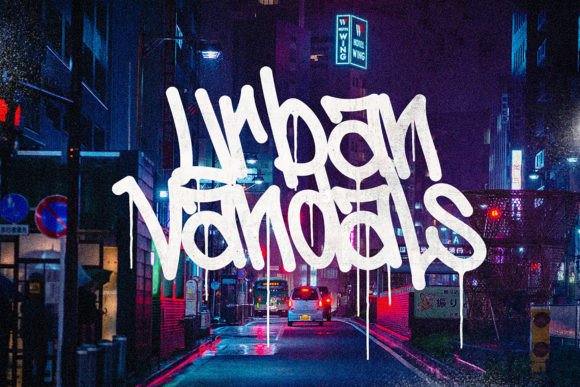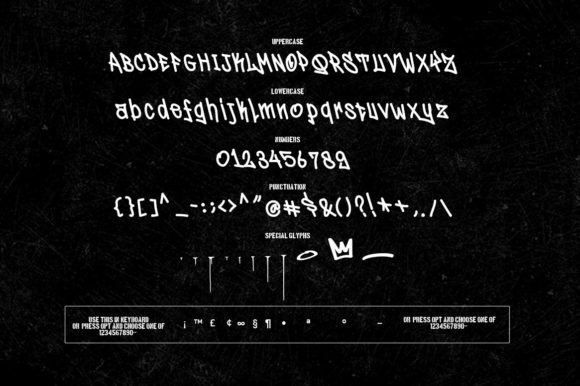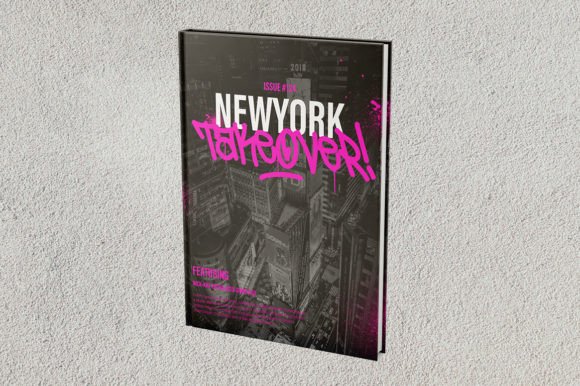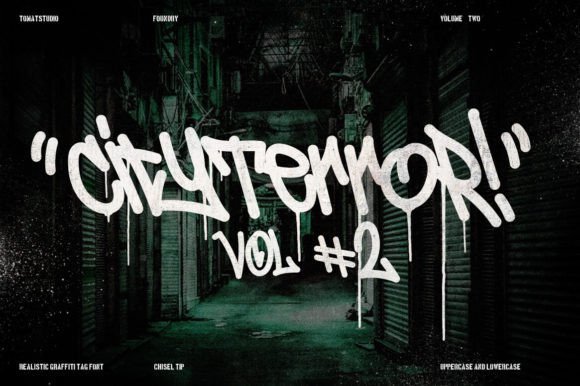
Introduction to City Terror Vol2 Font
This is volume 2 of City Terror Fonts, the difference is this one uses a chisel rounded tip so it will be a good result if you use it for old-school style tagging or old-style pieces.
But otherwise, you can use it in any style and any need, especially for street art and hip hop .